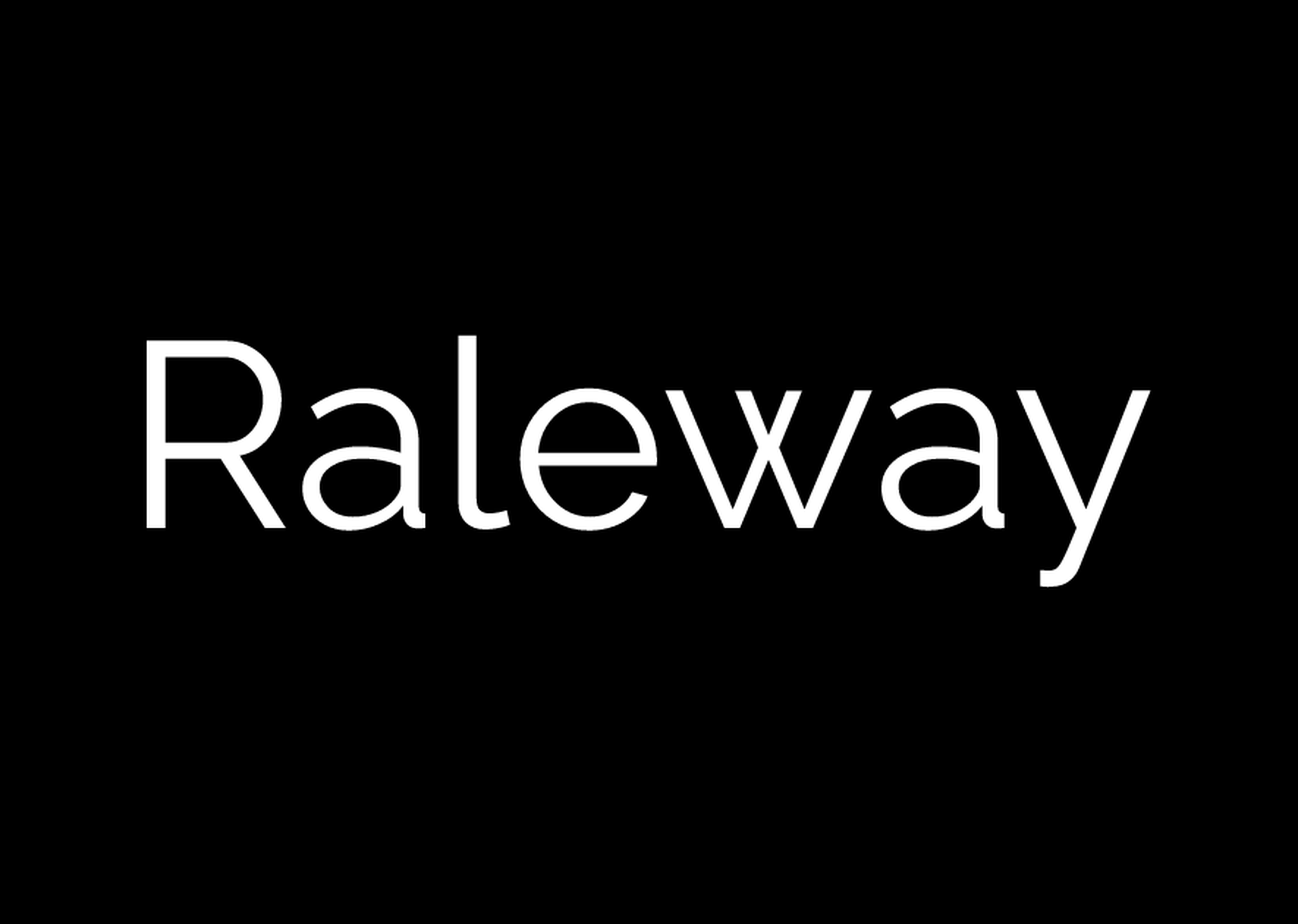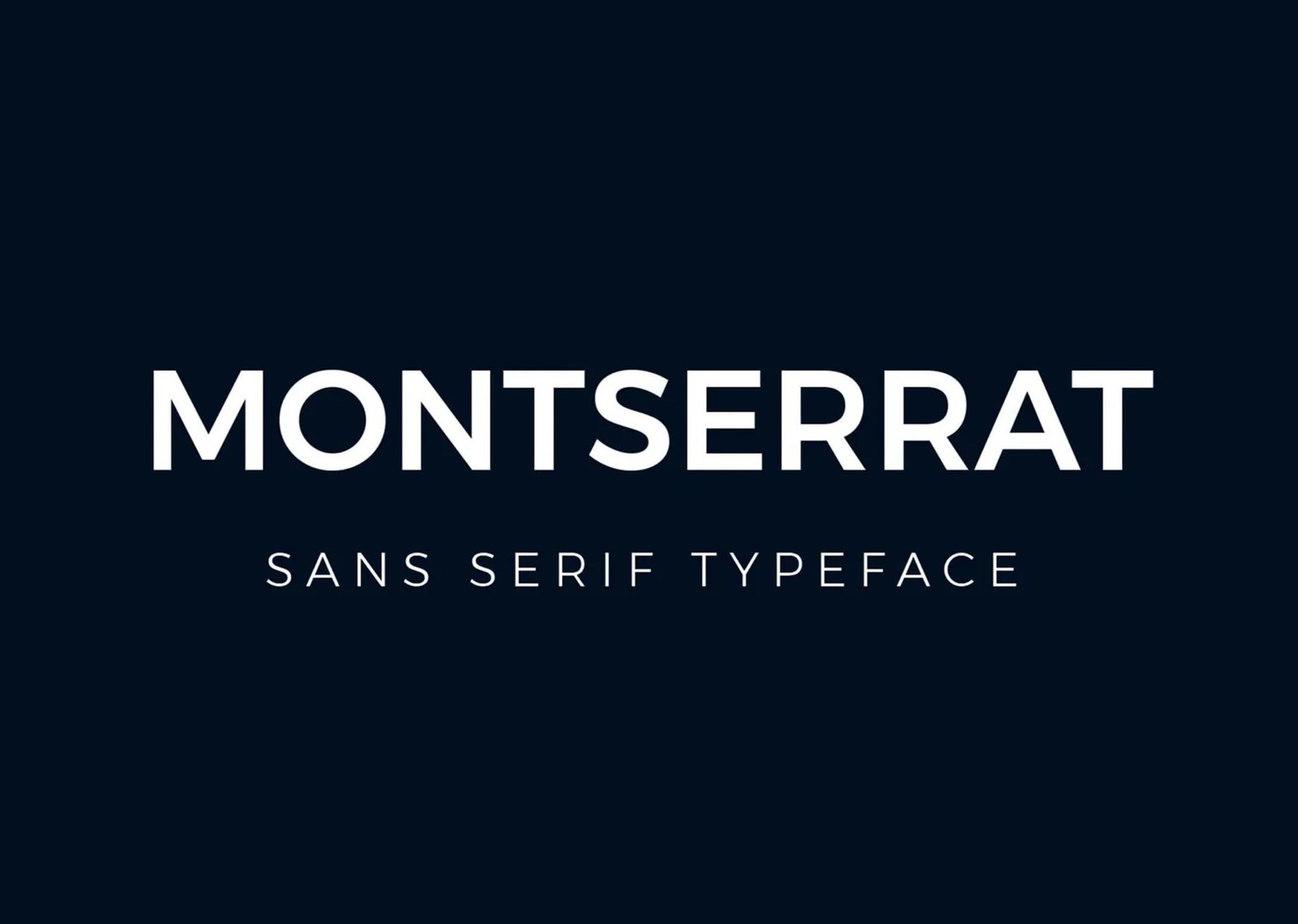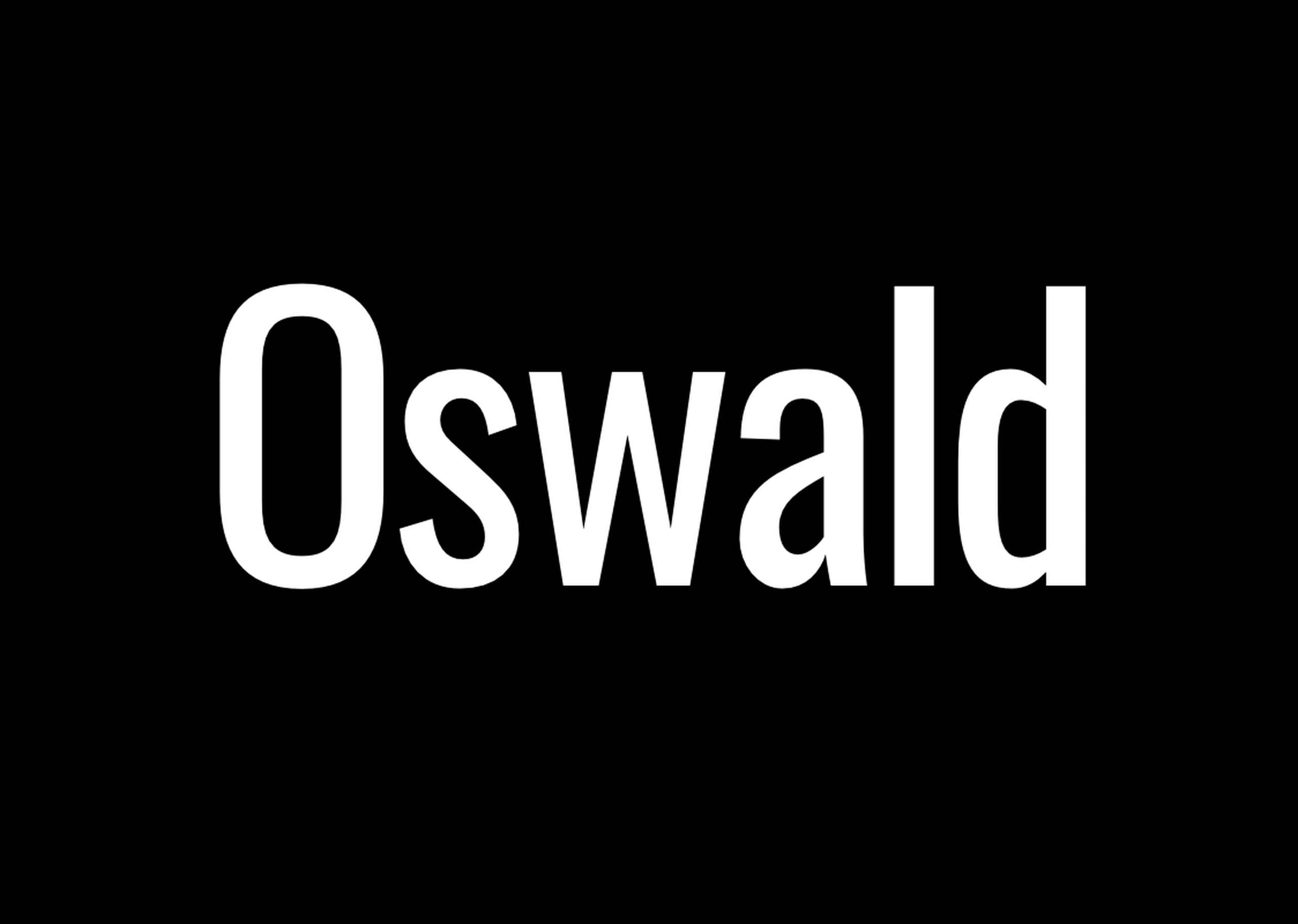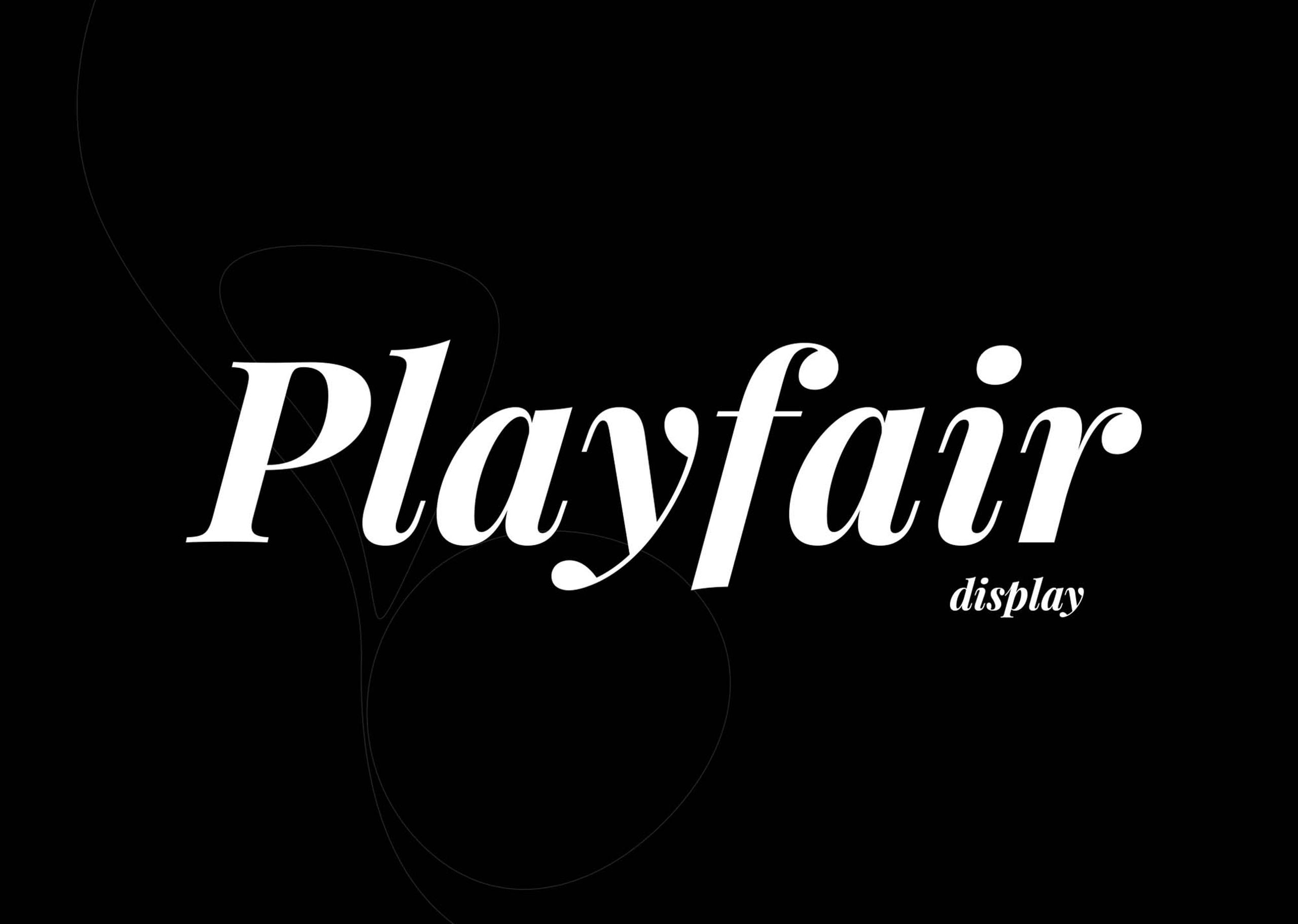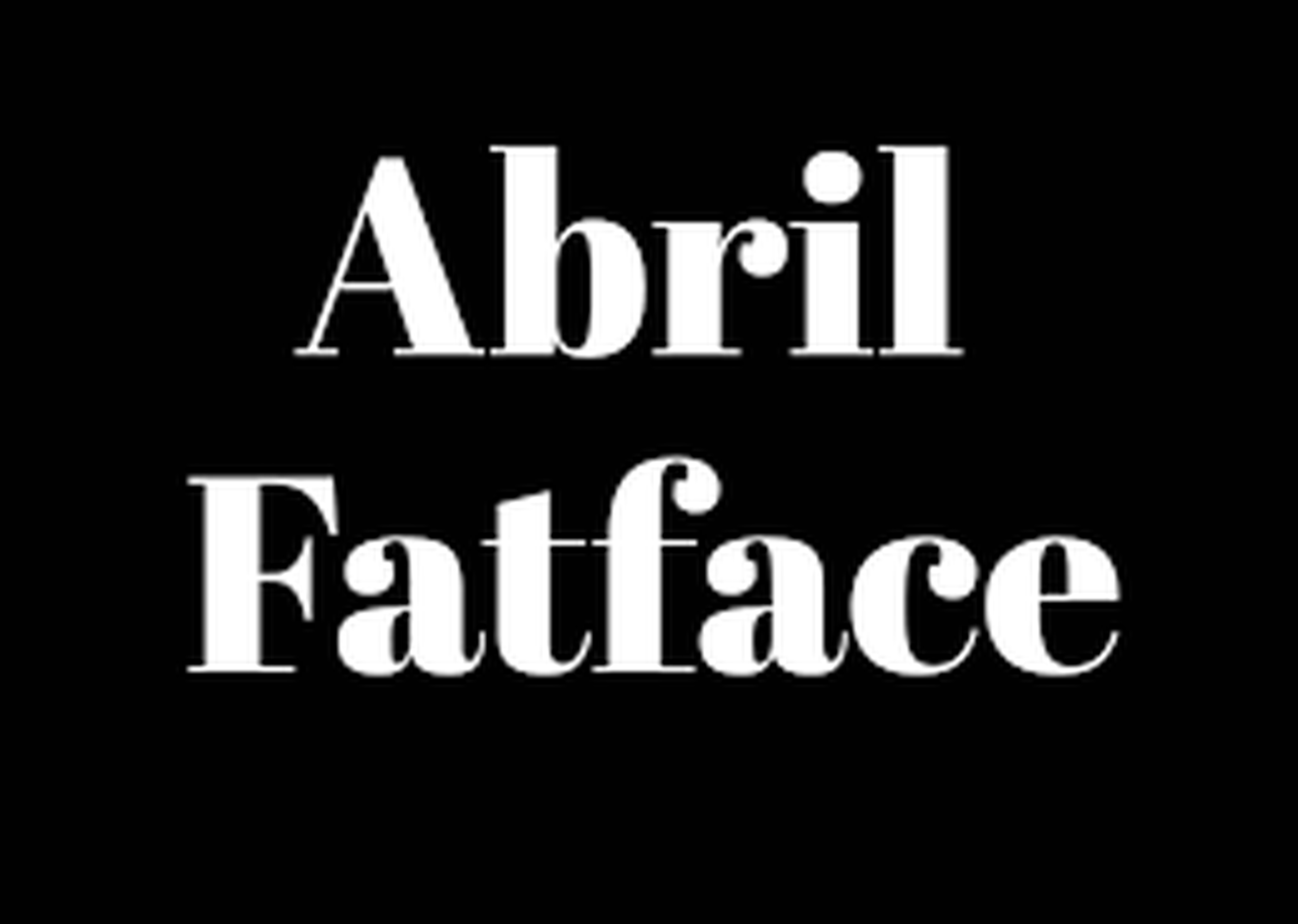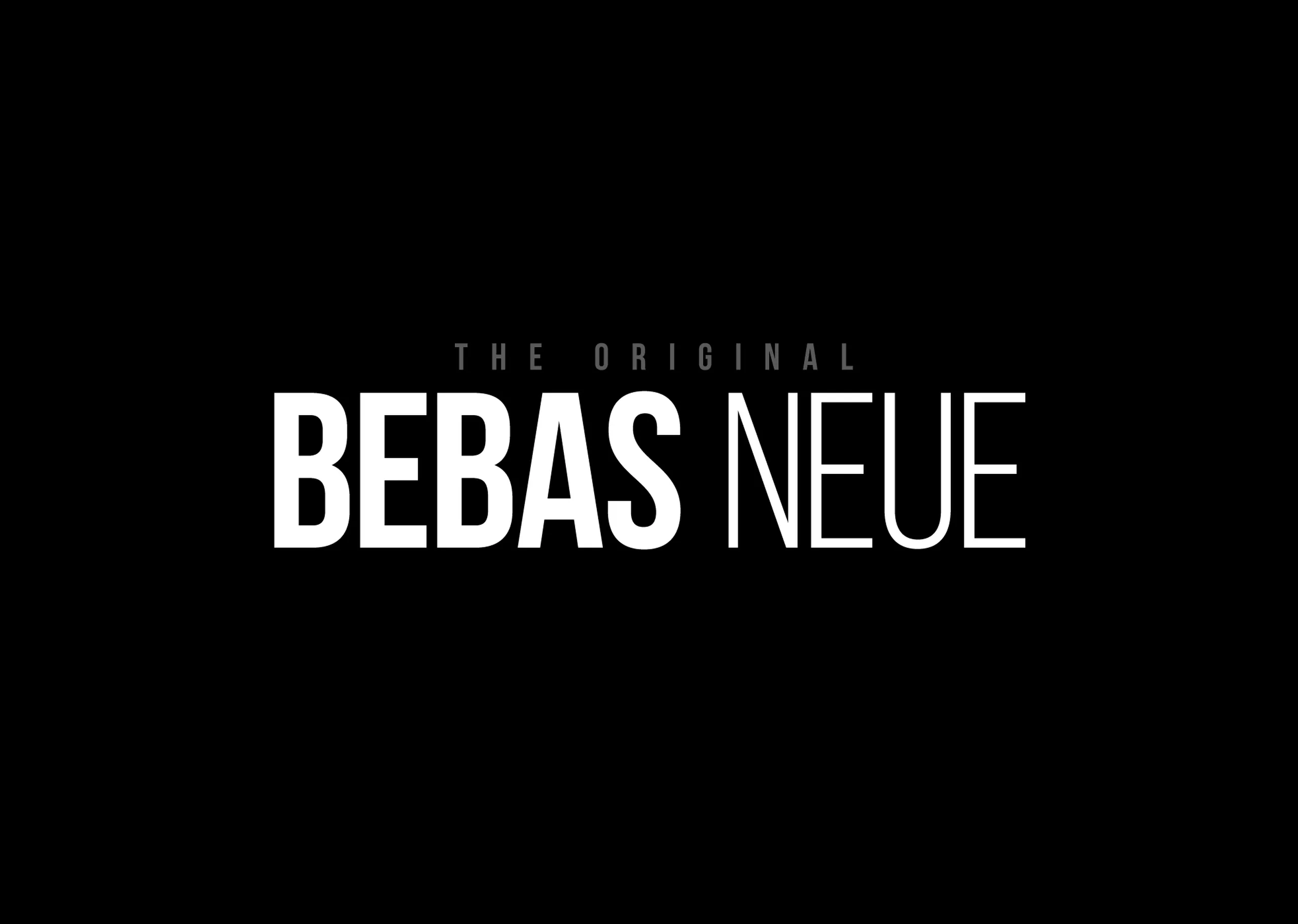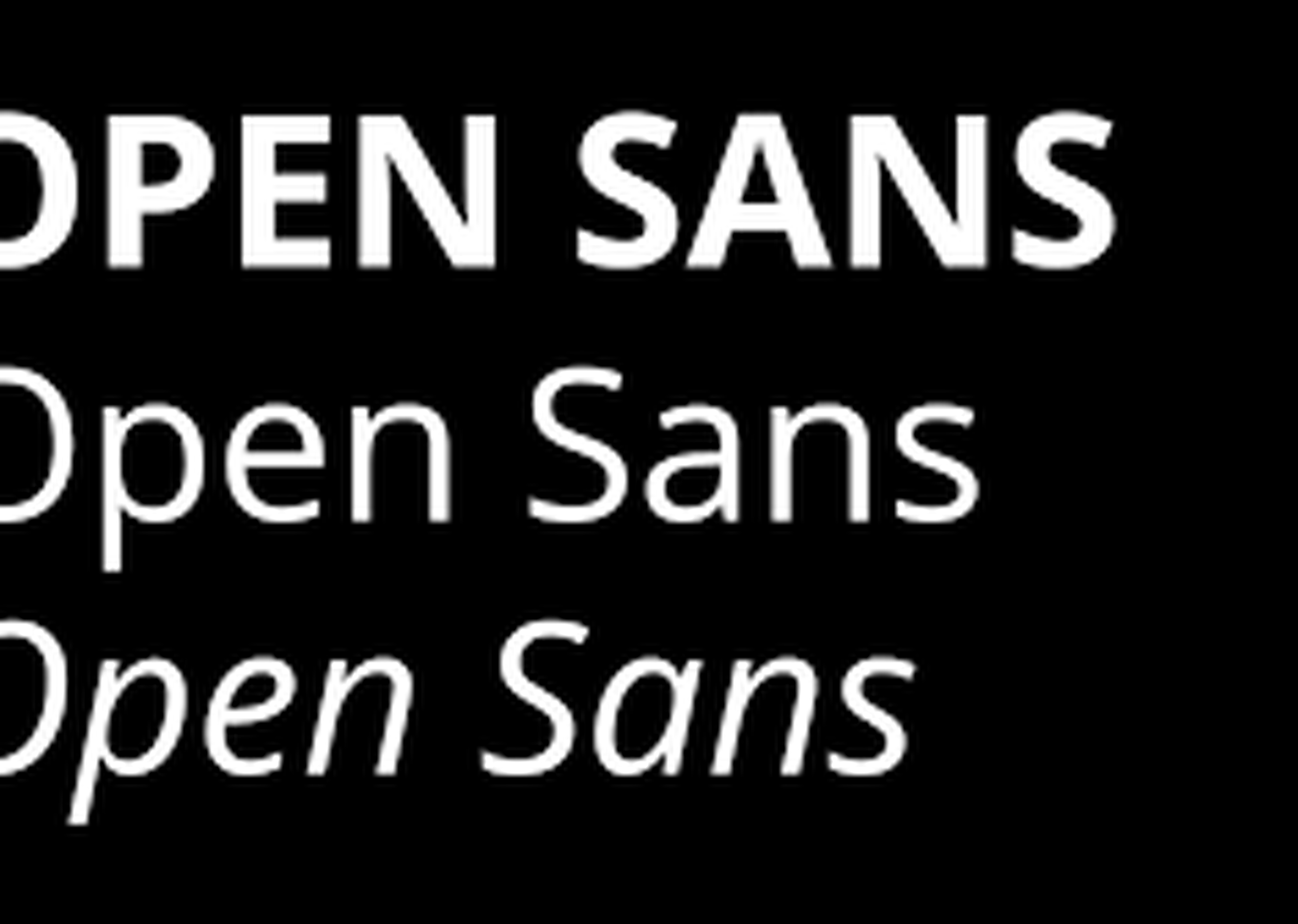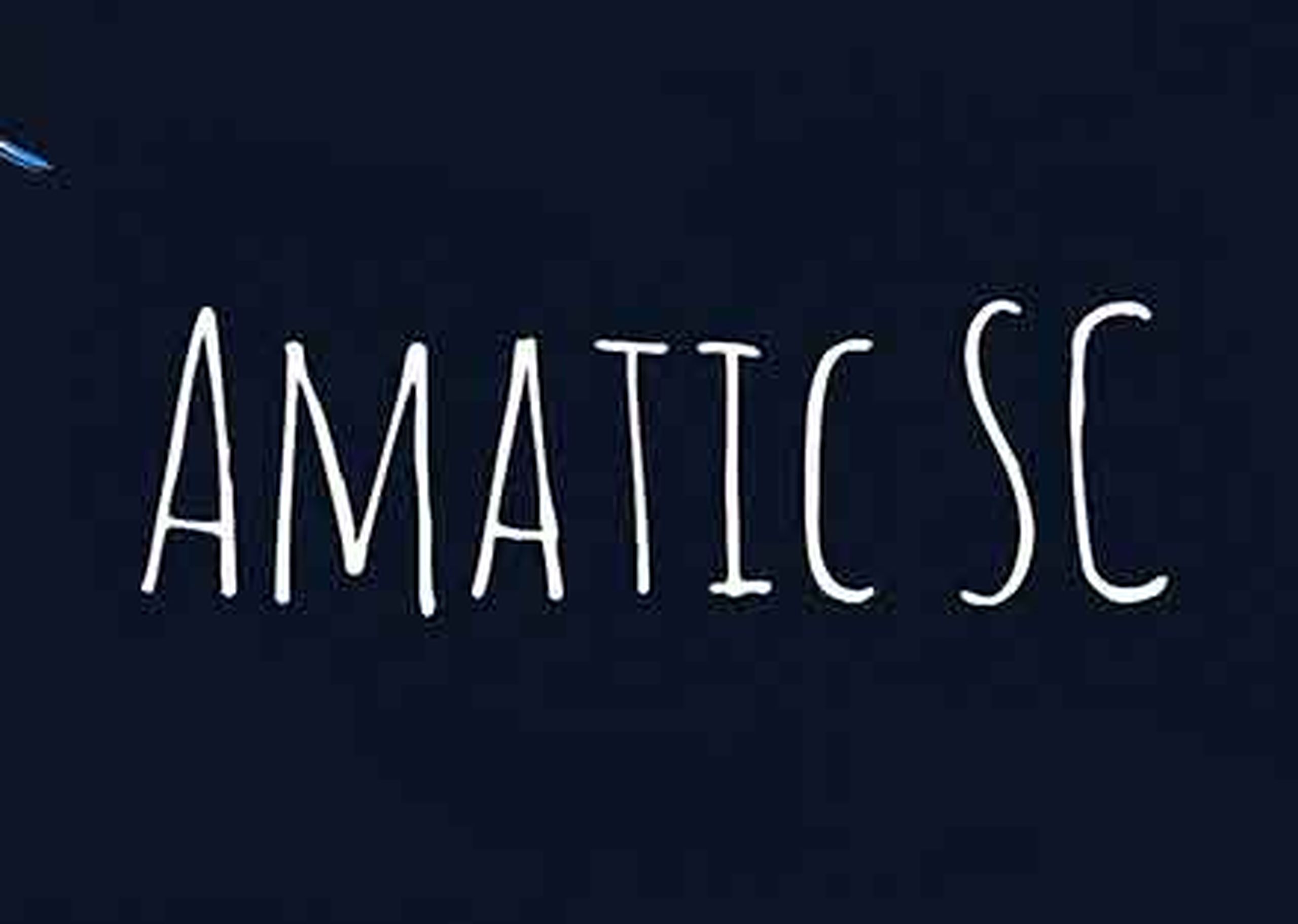
10 Best Canva Fonts For T-Shirts
Discover the perfect Canva fonts for your t-shirt designs, from timeless elegance to playful charm.
Typography is a pivotal element in t-shirt design, influencing how your message is conveyed and the overall aesthetic appeal of your apparel. With Canva's extensive font library, crafting captivating t-shirt designs has never been more accessible.
Choosing a font for a t-shirt isn’t just about what looks good on your screen, it’s about how that design translates to fabric, ink, and real-world wear. The right font can elevate a shirt from “just okay” to something people love wearing over and over.
Canva makes font selection approachable, but not every font is production-friendly. Below, we’re highlighting Canva fonts that hold up well when printed on t-shirts, plus tips on when to use each style and how to make sure your final design looks just as good in real life as it does in the mockup.
How to Choose the Right Canva Font for Your Shirt Design
Prioritize legibility from a distance
Shirts are read from 6–10 feet away. Fonts with clean shapes and open counters tend to perform best.
Avoid ultra-thin strokes
Very thin lines can break up or fade when printed, especially on textured garments.
Think about the vibe first
Is your shirt playful, professional, retro, or bold? Let the font do some of that storytelling.
Less is more
One strong font almost always beats mixing too many styles on apparel.
Fonts Options
Montserrat
Montserrat is a contemporary and versatile sans-serif option boasting geometric shapes and clean lines. This font delivers clarity and professionalism across various print sizes, perfect for modern and minimalist designs.
It is also ideal for tech startups, fashion-forward streetwear brands, and beyond.
Playfair Display
Playfair Display epitomizes timeless sophistication with its elegant serifs and refined letterforms.
Ideal for premium and high-end t-shirt designs, this serif font adds an air of luxury to your apparel, whether creating a logo for a luxury brand or designing typography for a formal event.
Pacifico
Inject personality and whimsy into your t-shirt designs with Pacifico, a charming script font known for its fluid strokes and casual vibe.
Whether you're designing for a beach vacation or a summer music festival, Pacifico adds warmth and creativity to your apparel, capturing the spirit of fun and adventure.
Oswald
Oswald commands attention with its bold and assertive sans-serif letterforms, making it perfect for designs that require a strong visual impact.
Whether you're designing for a sports team or a fitness brand, Oswald exudes confidence and strength, ensuring your message stands out from the crowd.
Raleway
Raleway offers a sleek and modern sans-serif option characterized by its thin letterforms and generous spacing. Perfect for minimalist and contemporary designs,
Raleway adds a touch of refinement to your apparel, making it suitable for various applications, from corporate events to fashion-forward streetwear brands.
Lobster
Lobster's distinctive script letterforms and stylish flourishes bring a sense of elegance and flair to your t-shirt designs.
Perfect for designs that demand a touch of sophistication, Lobster adds a sense of luxury and exclusivity to your apparel, making it ideal for special occasions and fashion-forward audiences.
Abril Fatface
Abril Fatface commands attention with its bold and elegant serif letterforms, offering a touch of sophistication and refinement to your t-shirt designs.
Whether you're designing for a formal event or a high-end fashion brand, its high-contrast letterforms and graceful curves make a statement.
Amatic SC
Amatic SC adds personality and warmth to your t-shirt designs with its charming handwritten letterforms and playful demeanor.
Whether designing for an arts and crafts fair or a creative workshop, Amatic SC adds a handmade touch to your apparel, making it perfect for designs that embrace creativity and individuality.
Bebas Neue
Bebas Neue makes a bold statement with its modern and assertive sans-serif letterforms, offering a touch of urban cool to your t-shirt designs. Whether you're designing for a streetwear brand or a music festival, Bebas Neue demands attention and adds a sense of energy and excitement to your apparel.
Open Sans
With its clean lines and friendly demeanor, Open Sans strikes the perfect balance between professionalism and approachability.
Ideal for designs that require excellent readability and clarity, It adds a touch of sophistication to your t-shirts while ensuring your message is communicated effectively.
This makes it suitable for various applications, from corporate events to community fundraisers.